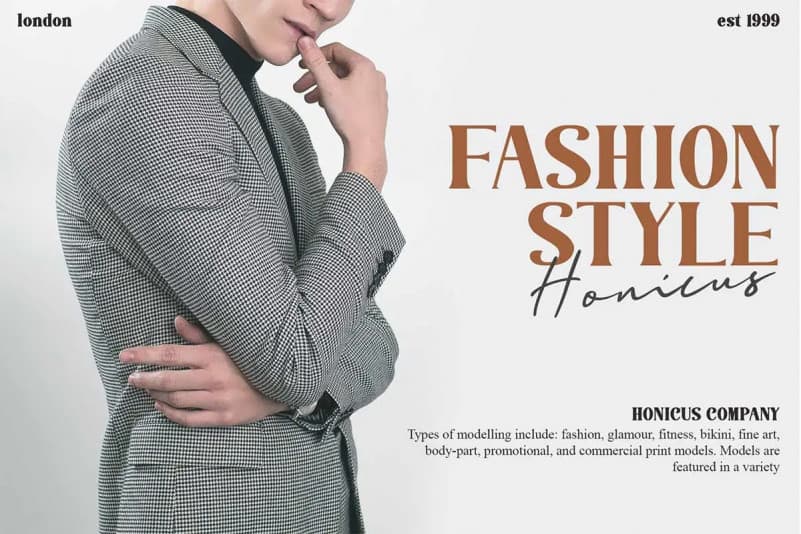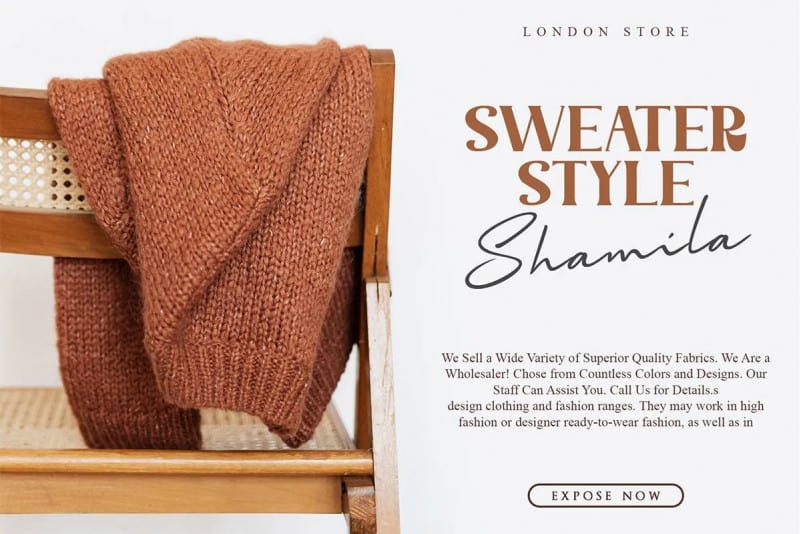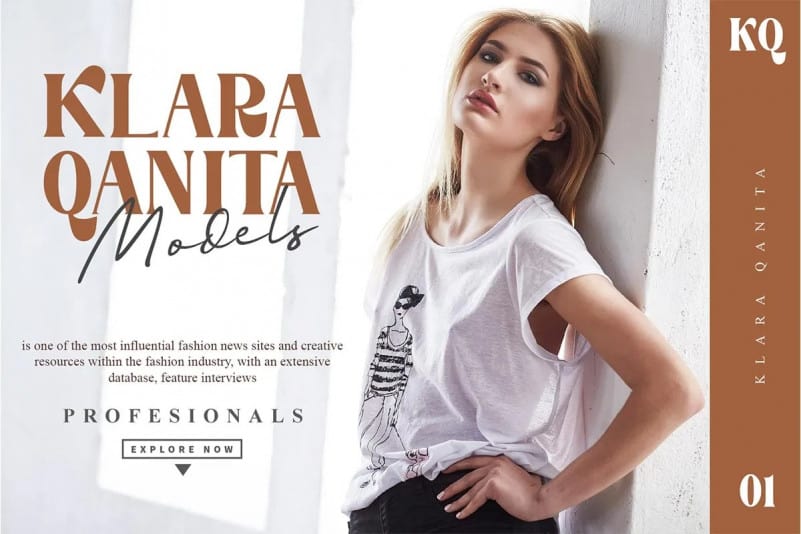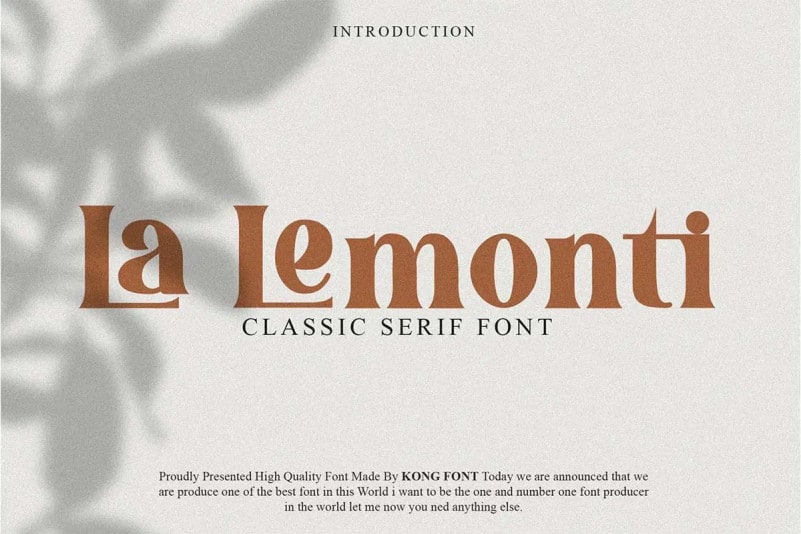
La Lemonti Serif Font is formal, elegant and can be applied to any design concept. It’s designed and shared by fontkong. Its use is very easy and simple. It can be run in design or non-design programs because the Mollas typeface has PUA unicode support. For branding design, header text, online shop, logo design, social media and so on.